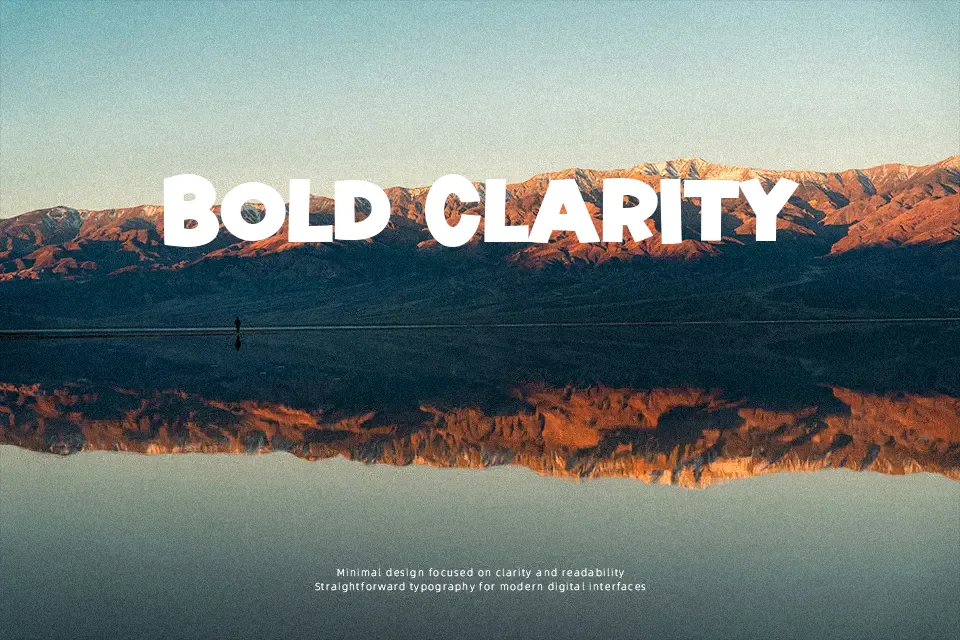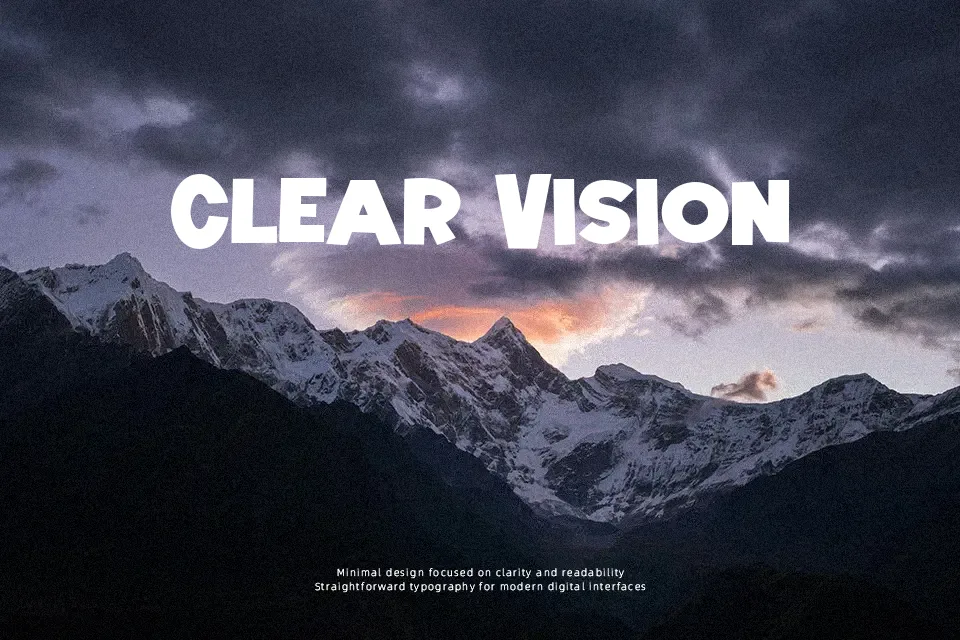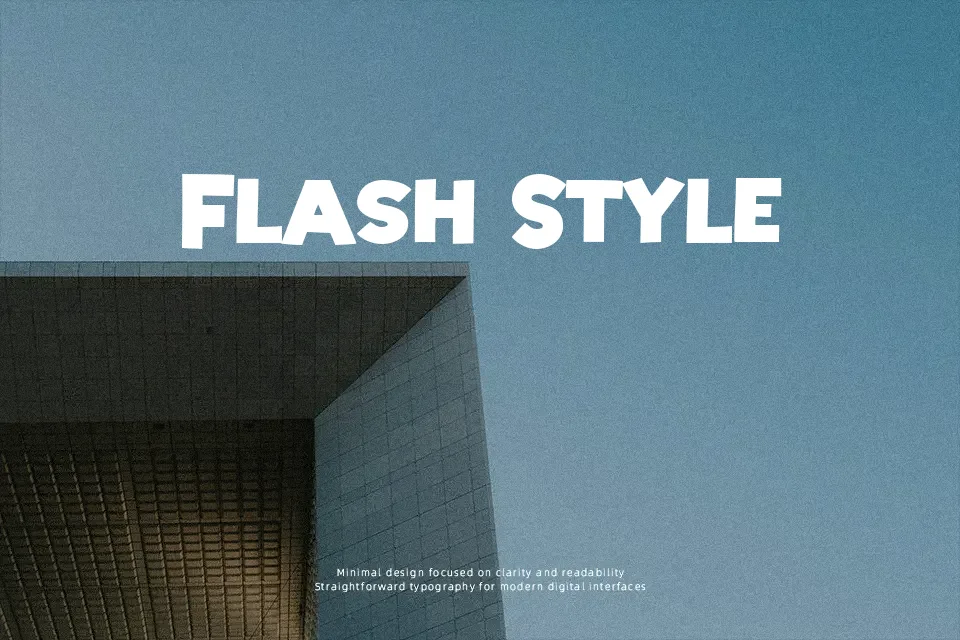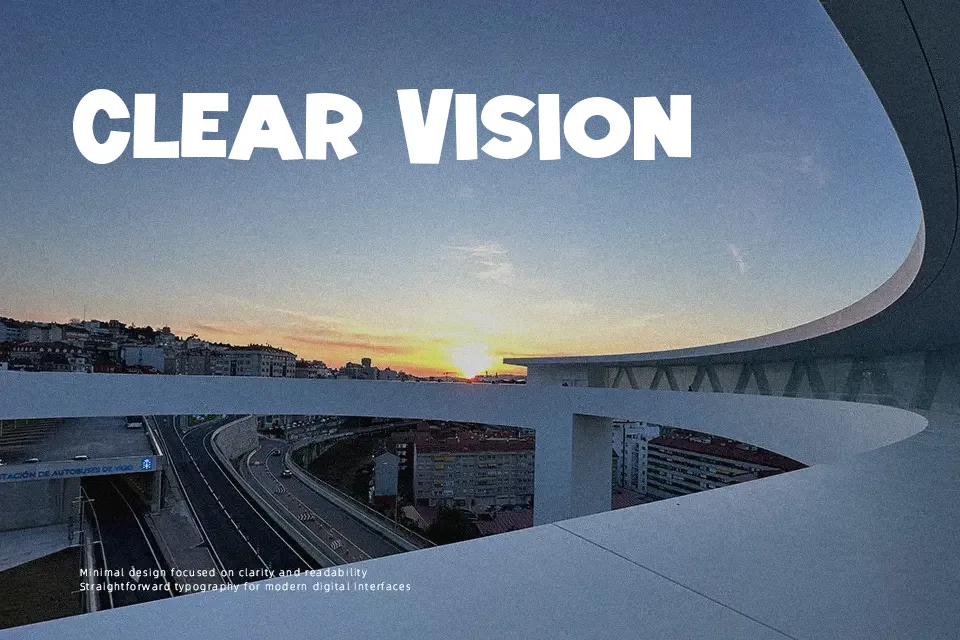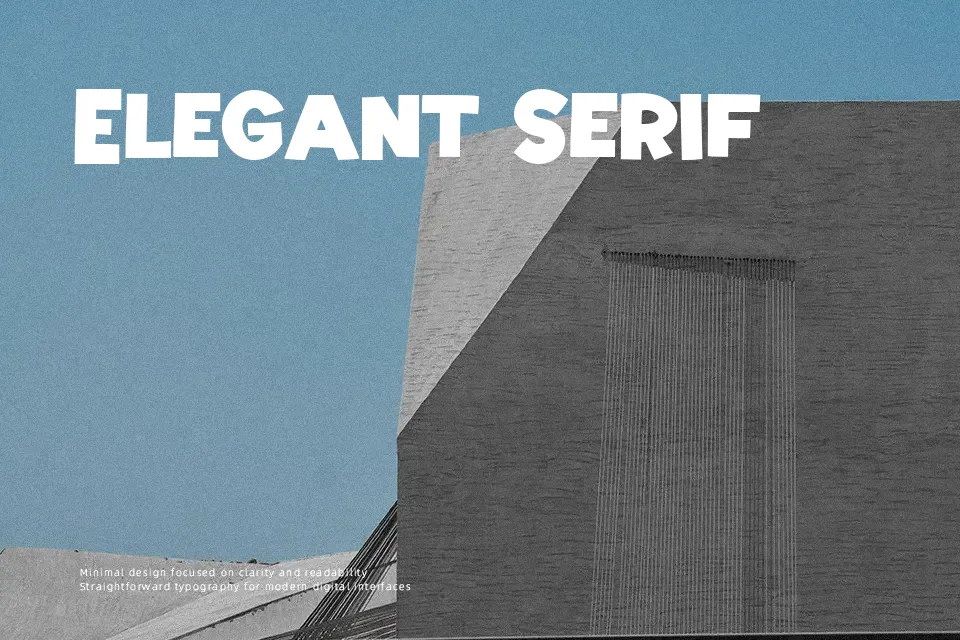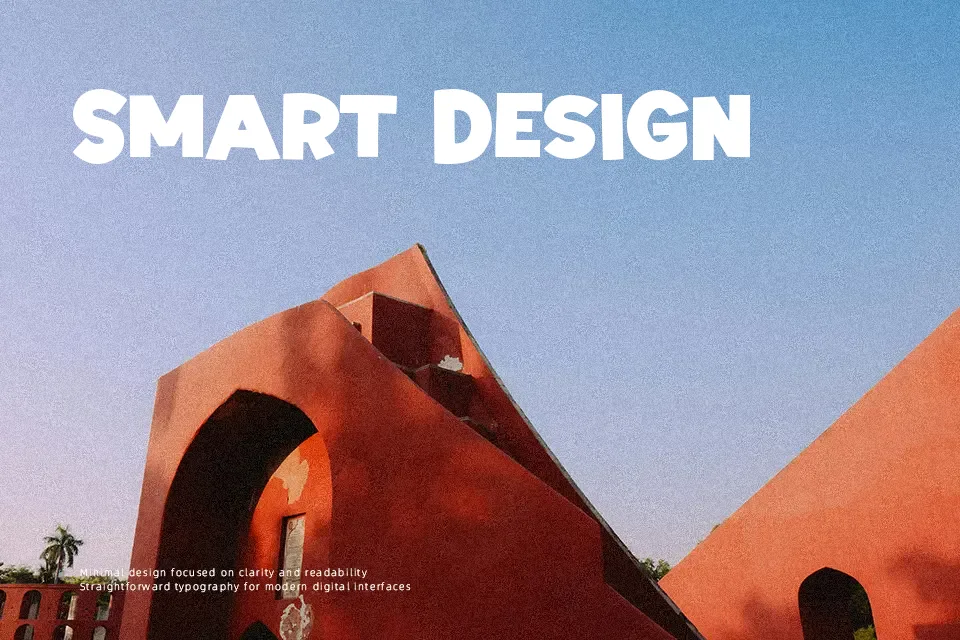
Super Cartoon Font
This typeface performs best in bold headline settings where visual personality matters most, making Super Cartoon Font an effective choice for cheerful graphic treatments. The letterforms feature substantial stroke thickness, minimal contrast, and smooth, rounded terminals that produce an approachable silhouette. Consistent character widths and tight tracking support a unified rhythm across short titles, apparel prints, and animated YouTube thumbnails. Legibility remains solid at medium and large scales because inner counters remain open. However, the exaggerated weight and compact letter spacing make the typeface unsuitable for dense body paragraphs or small mobile captions. For prominent display assets, the design delivers dependable graphic punch.
Best For: children’s book titles, toy packaging, animated video thumbnails, casual game logos
Not Ideal For: dense body paragraphs, formal legal documents, small mobile captions, technical spreadsheets